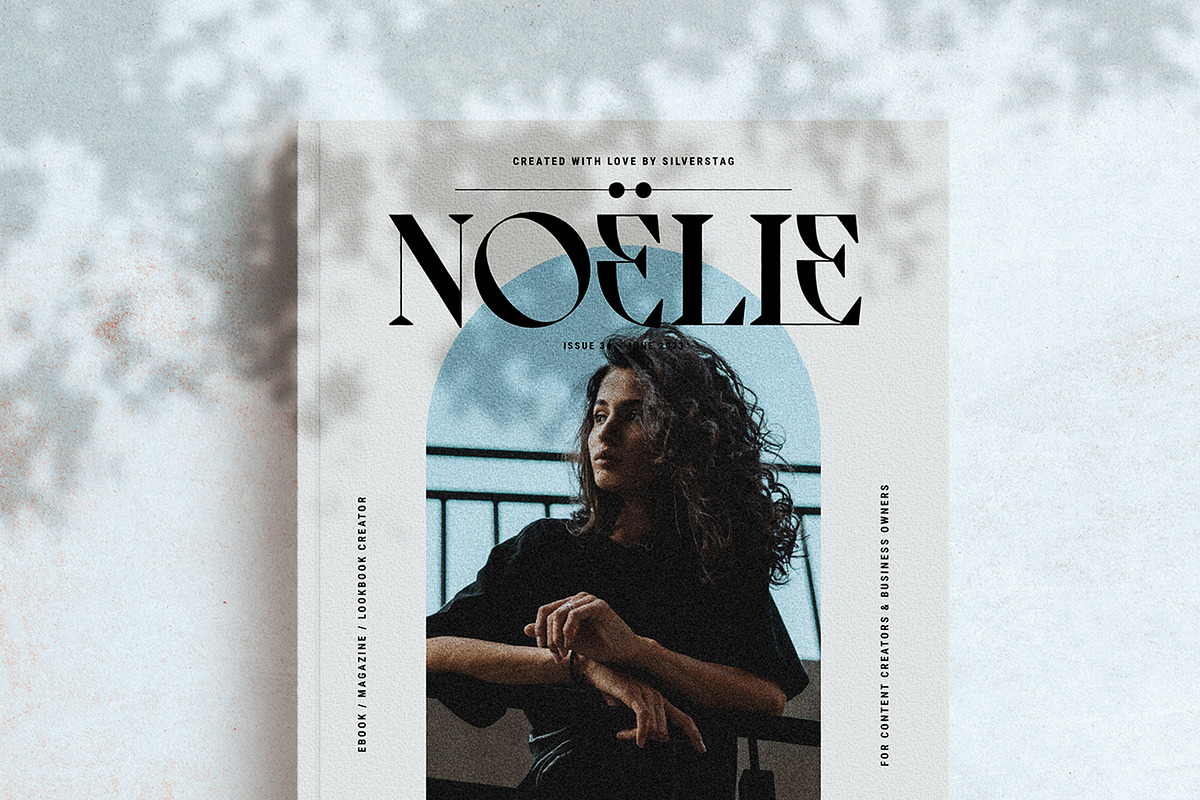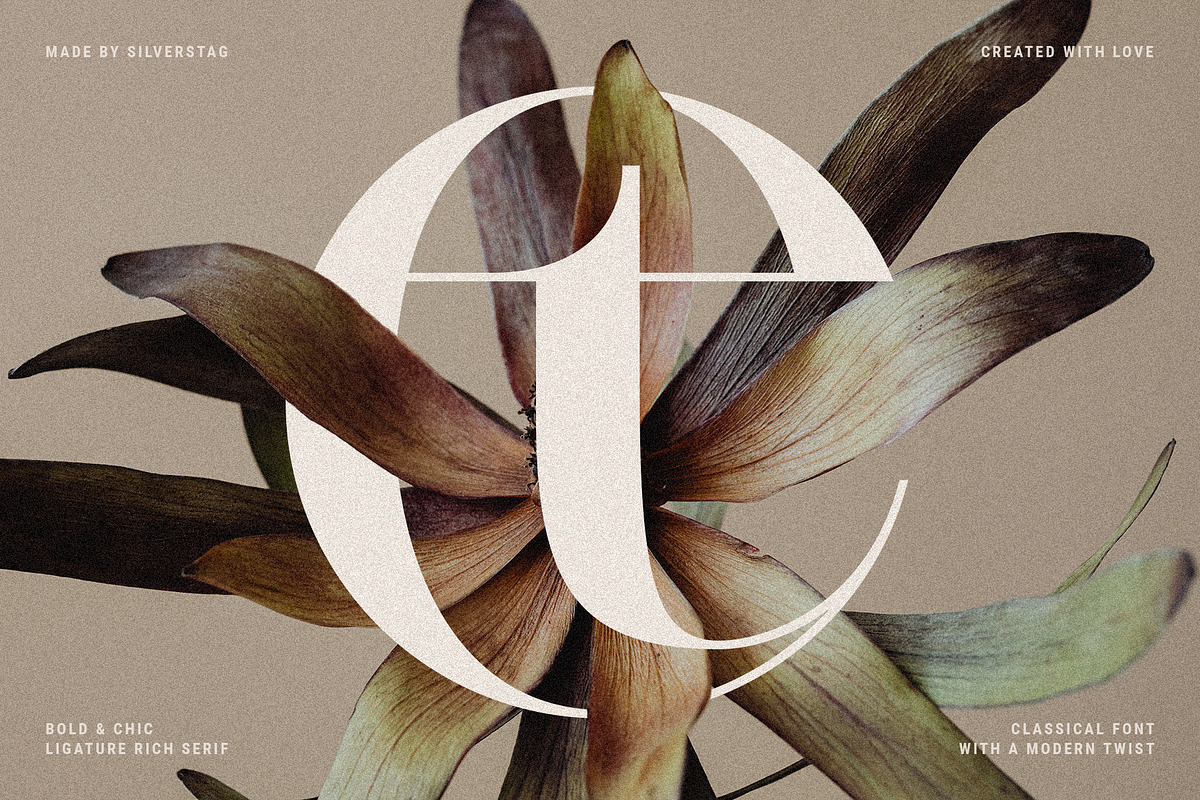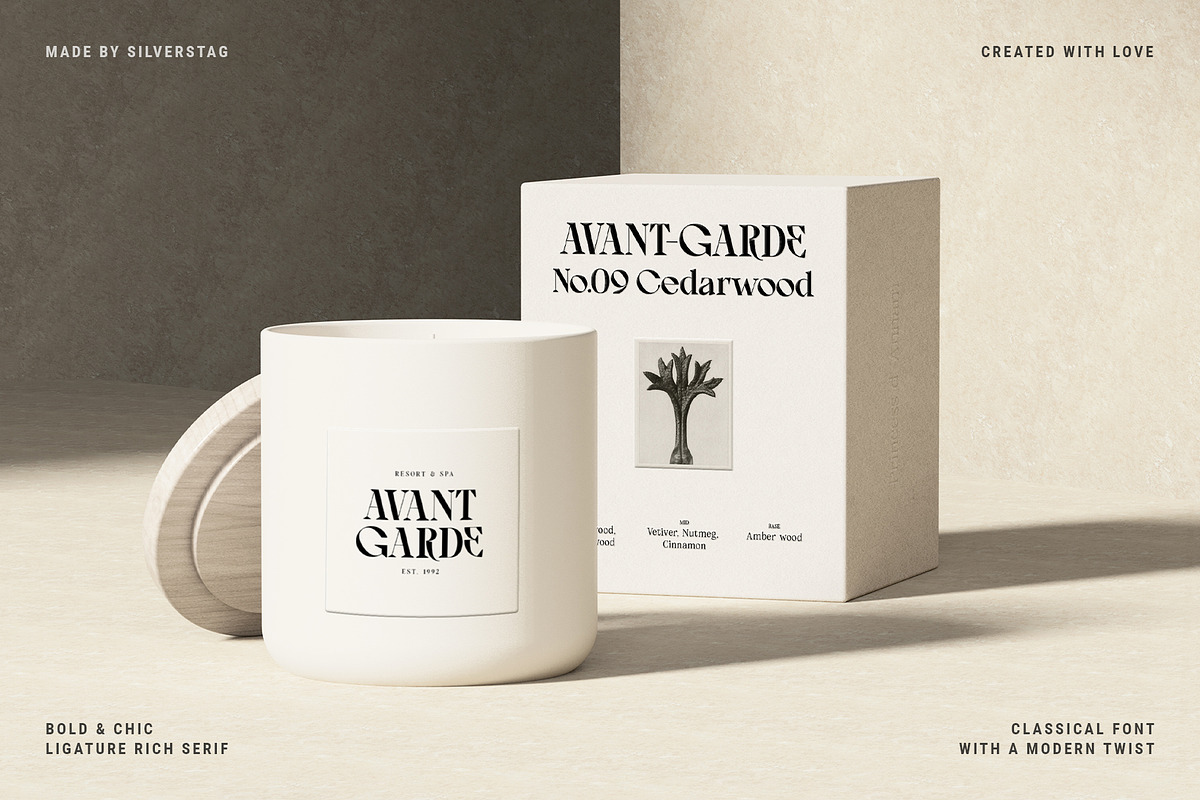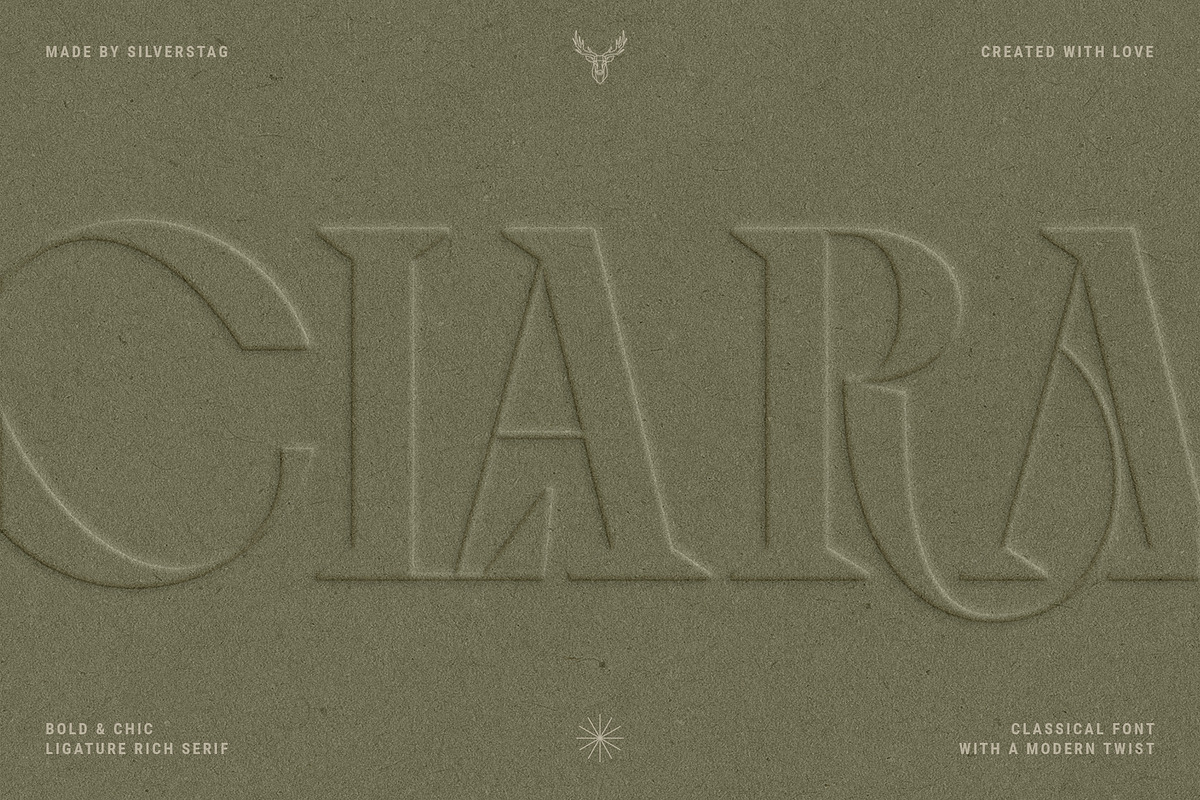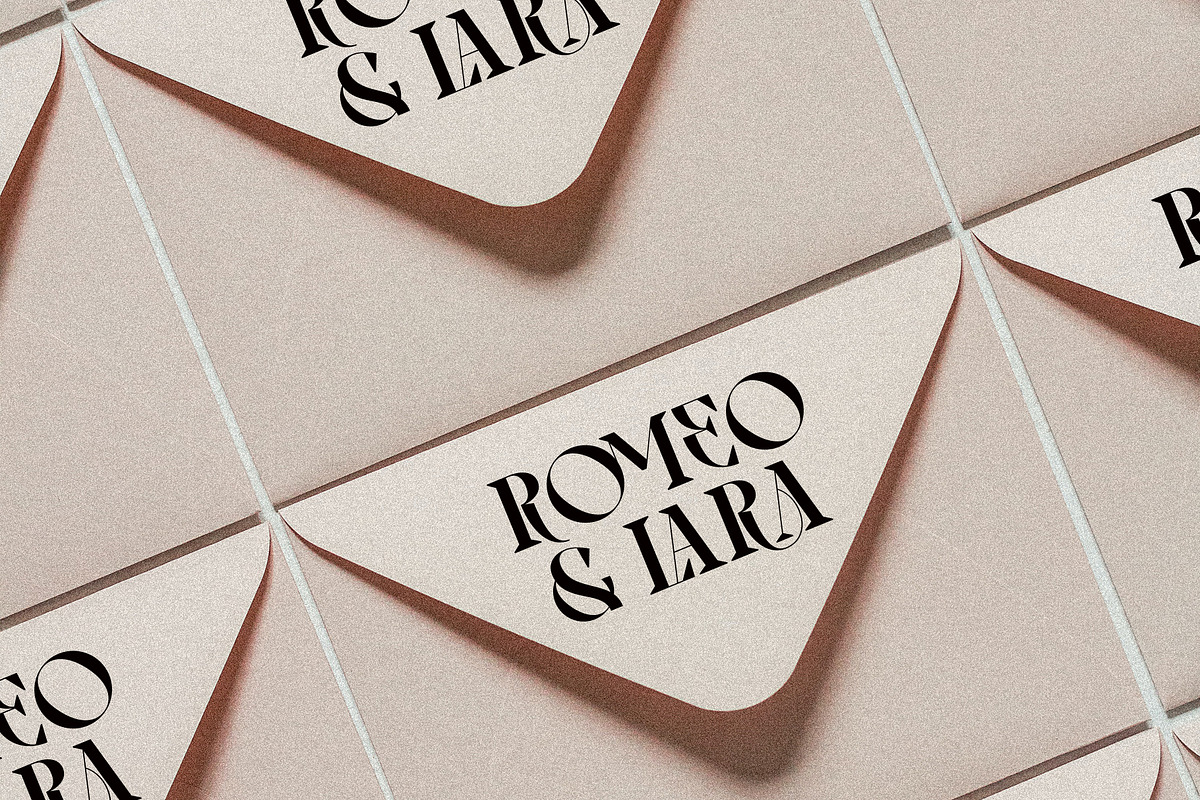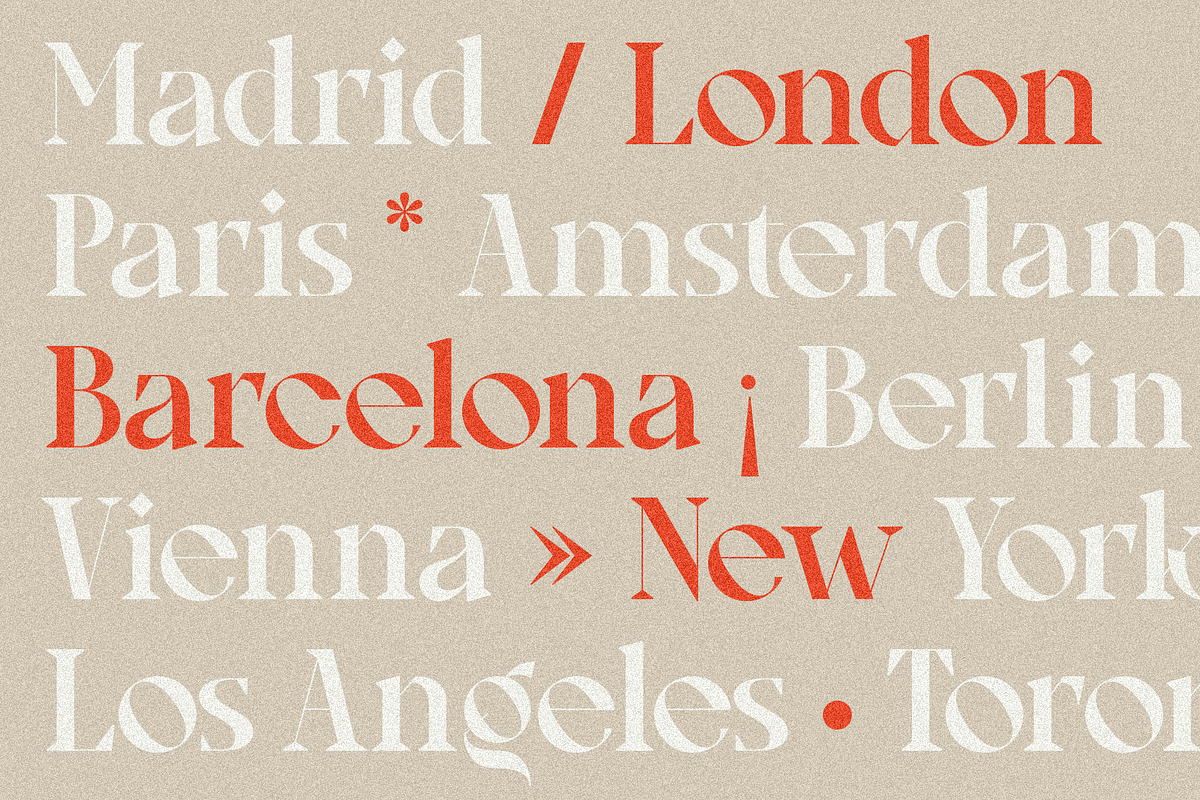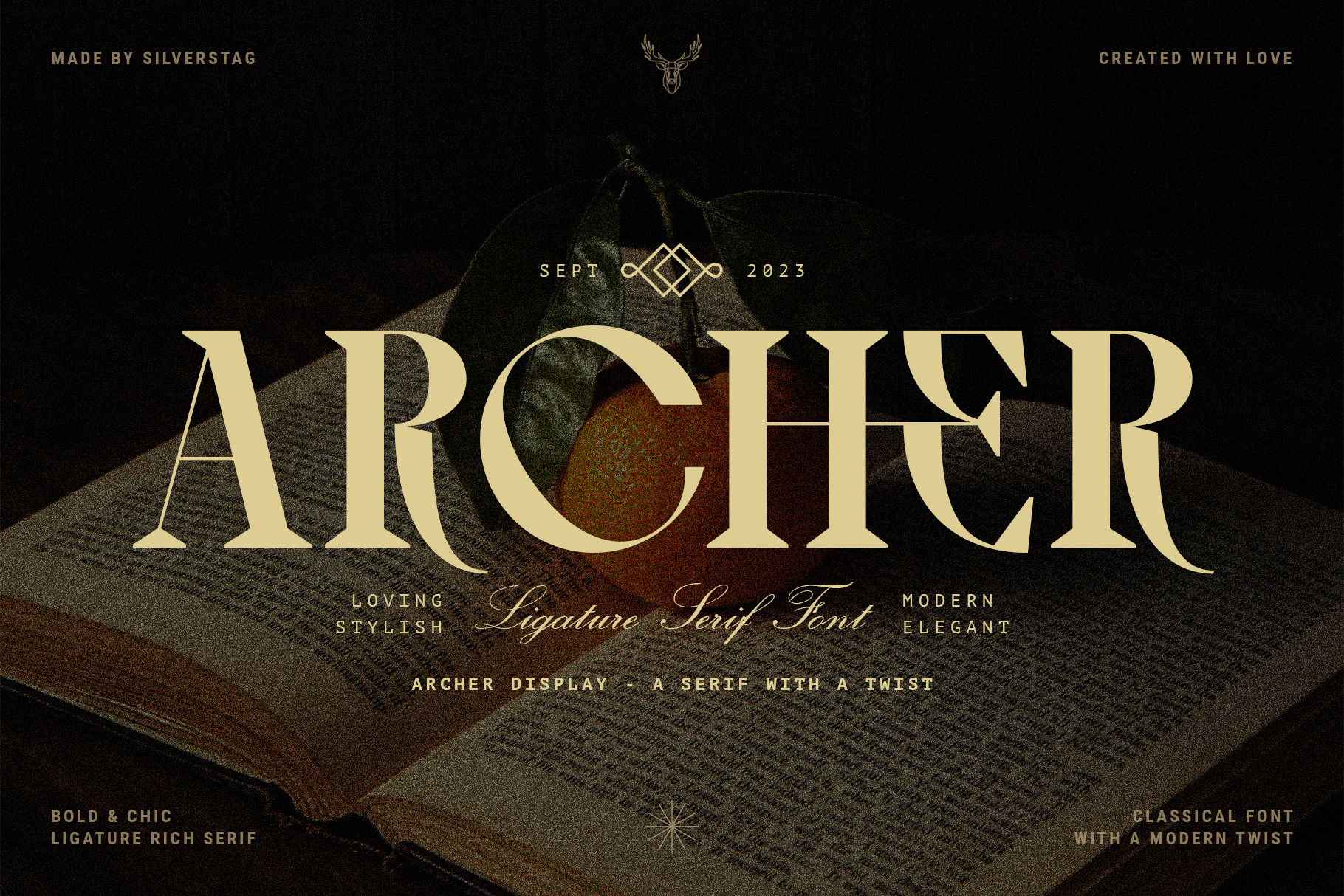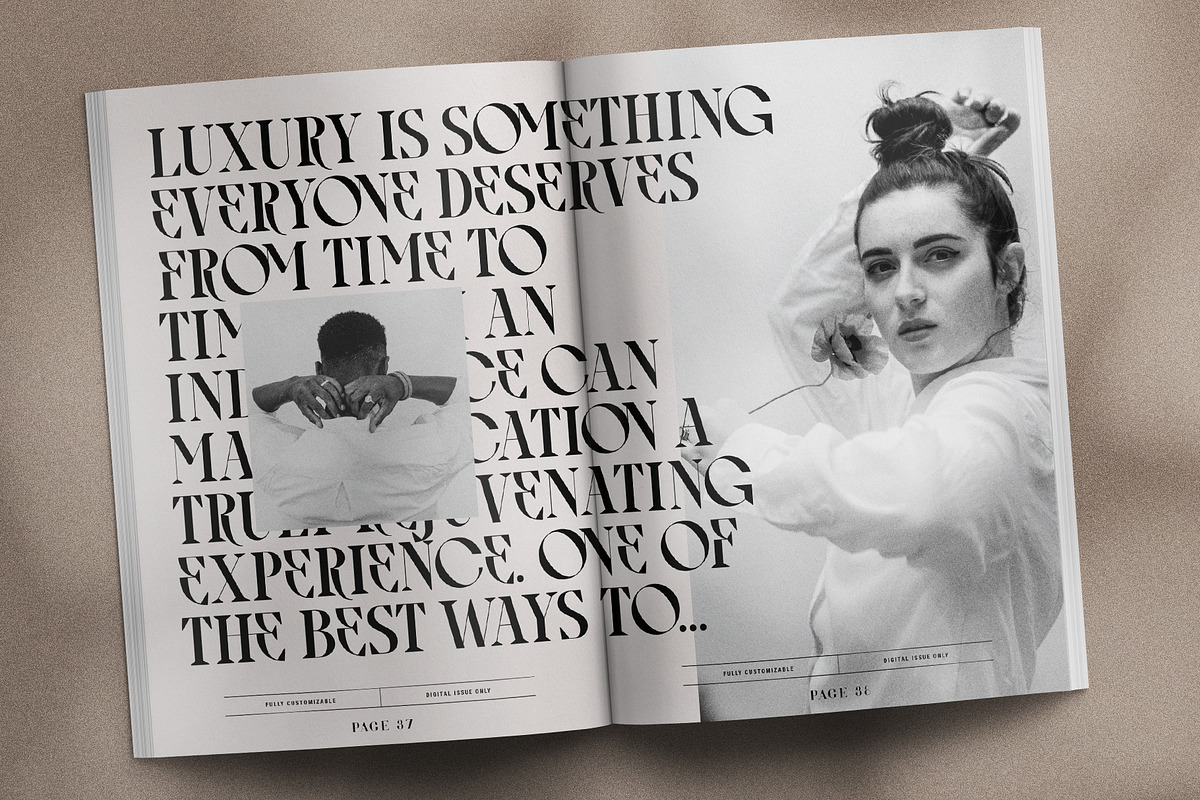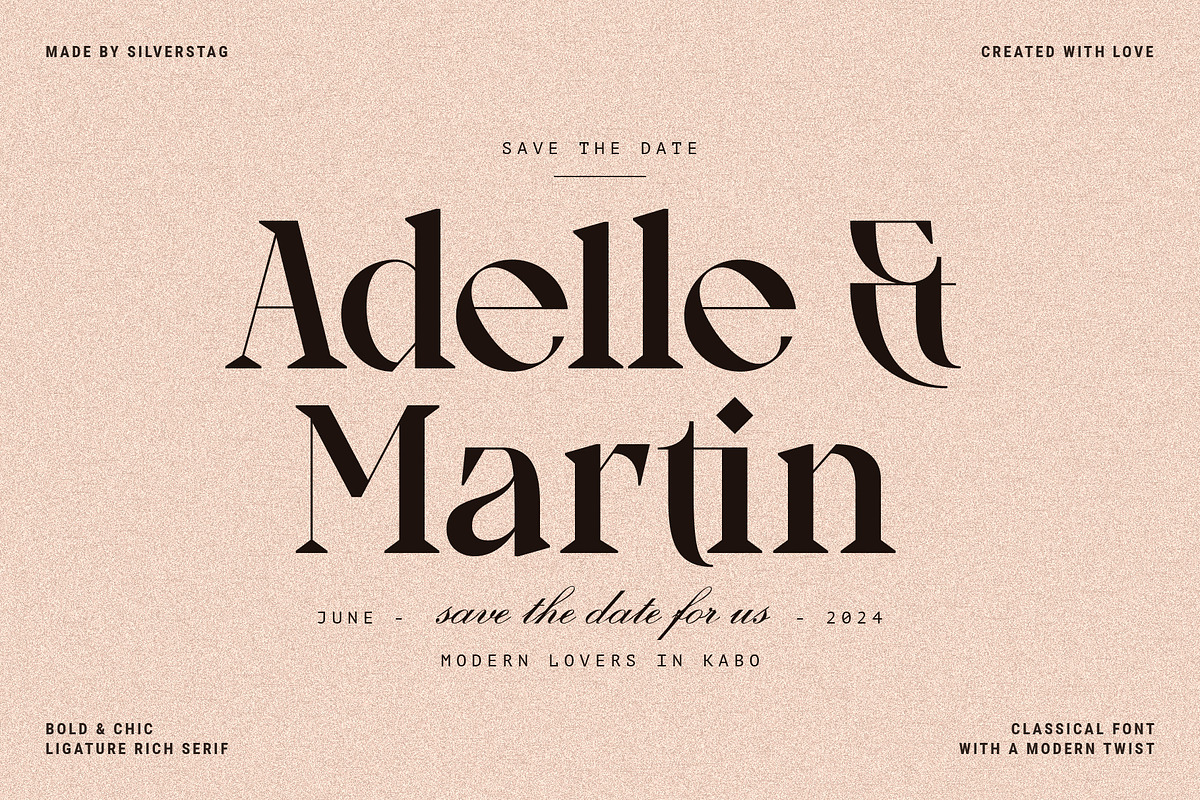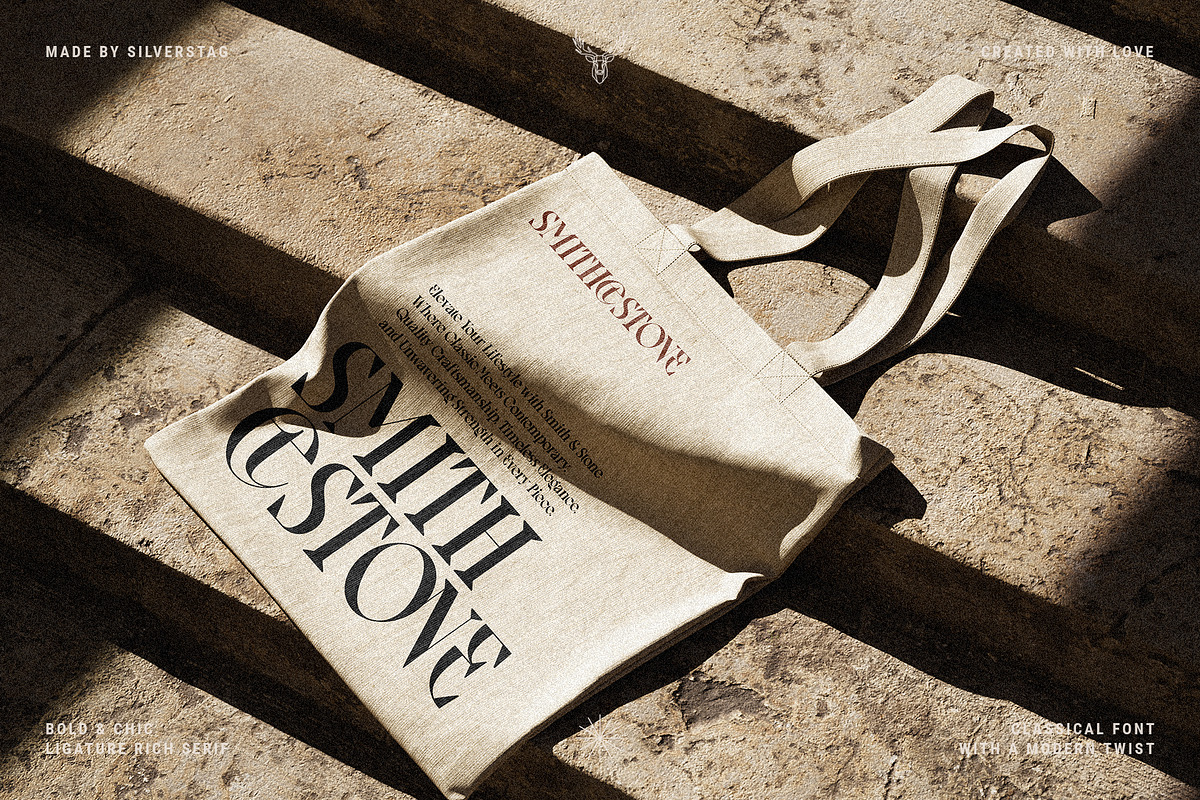
Archer Display - Ligature Serif Font
Introducing Archer Display – a serif font that bridges the realms of tradition and modernity with effortless finesse. This font carries the weight of a bygone era in its high-contrast design and substantial serifs, but it also boasts a captivating contemporary edge with select letters that have been thoughtfully reimagined for a touch of avant-garde charm.
Archer Display isn't just a font; it's a toolkit for your creativity. With over 70 meticulously crafted ligatures and alternate letters, including four distinct ampersands, it empowers you to experiment and craft your unique narrative. But that's not all – this font is a true polyglot, offering full language support for over 90 languages. It transcends linguistic boundaries, allowing your message to resonate globally.
Whether you're seeking to evoke a sense of timeless elegance or infuse a project with a modern twist, Archer Display is your ally. It's a font that harmonizes the echoes of yesteryears with the pulse of the contemporary design world. So, embrace the rich tapestry of design possibilities that Archer Display offers and embark on a journey where the past and future gracefully converge.
- Over 70 ligatures and alternate letters